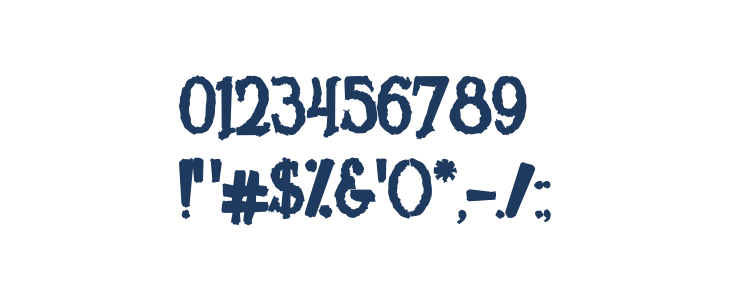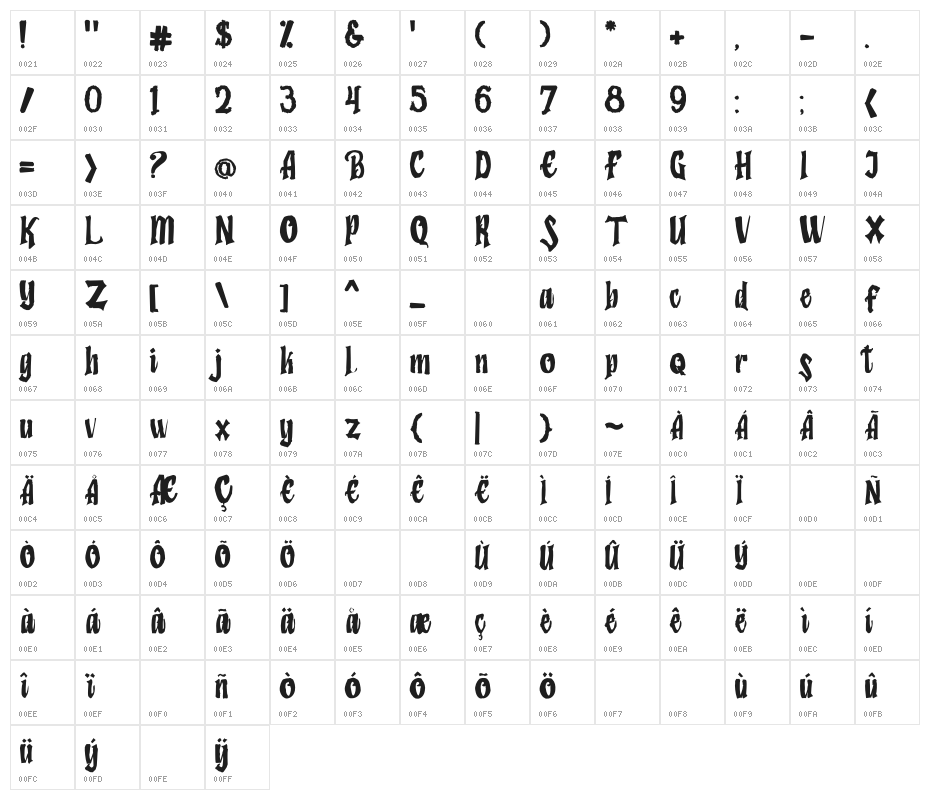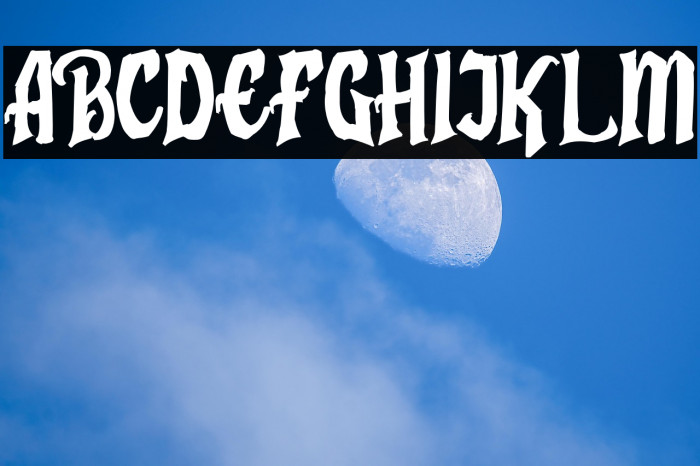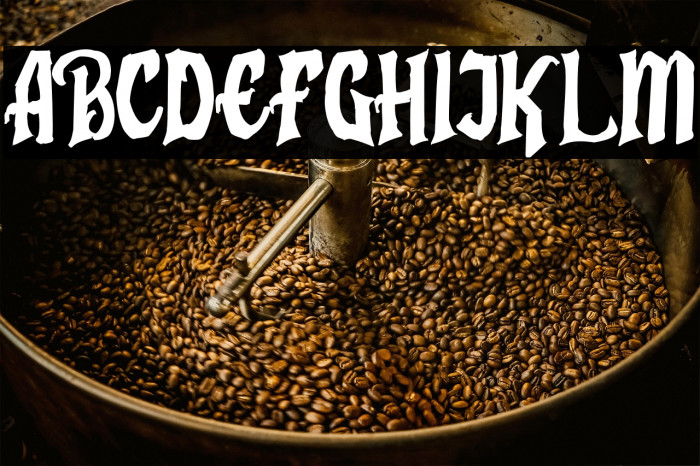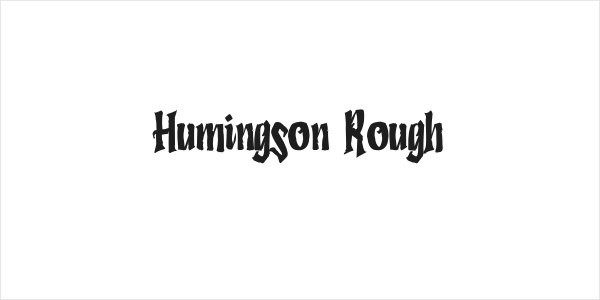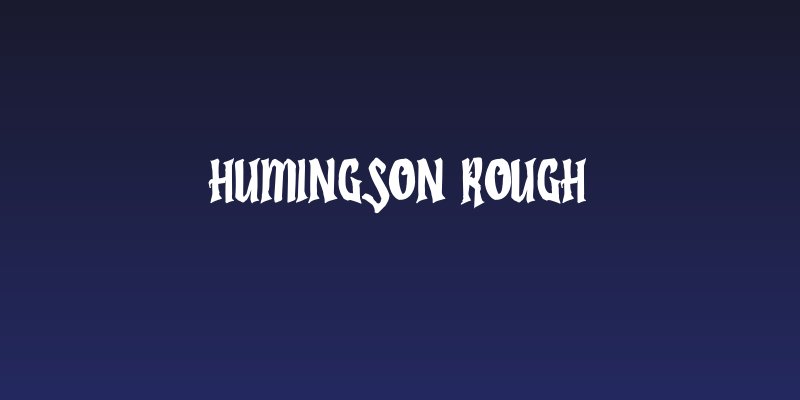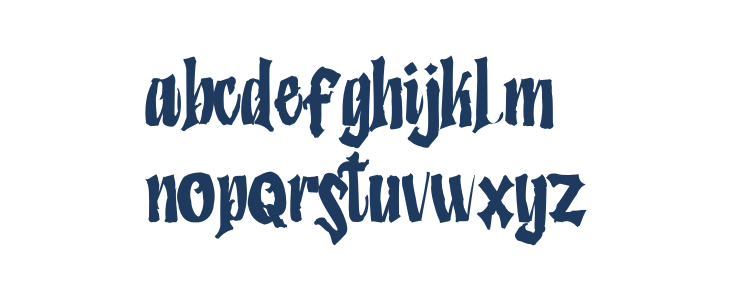
Humingson Rough Font
Humingson Rough Description
This font features a bold and rugged appearance, characterized by its rough, textured edges and uneven strokes. The letters have a hand-drawn quality, giving them a unique and artistic flair. The uppercase and lowercase characters maintain a consistent style, with sharp angles and a slightly distressed look. The numbers and special characters follow the same design principles, ensuring a cohesive appearance across all glyphs. This font's distinctive style makes it stand out, offering a dynamic and eye-catching option for various design projects.